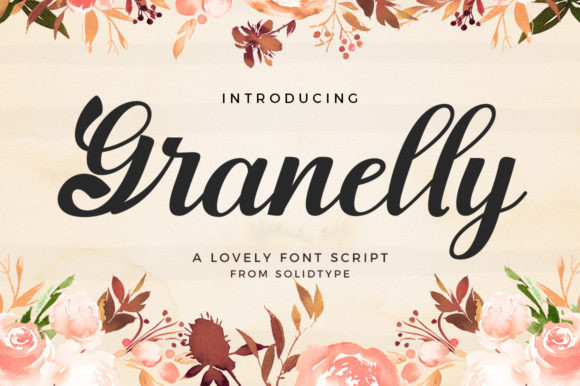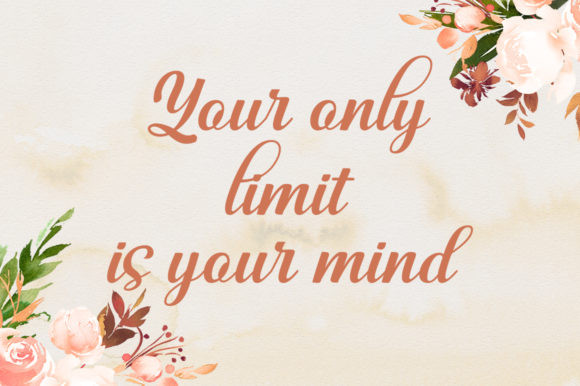
Granelly Font
Granelly Script Font
Granelly is a lovely and classic handwritten font. It can be used for various purposes such as logos, wedding invitations, headings, t-shirts, letterhead, signage, labels, news, posters, badges and so much more.
Granelly Script Font